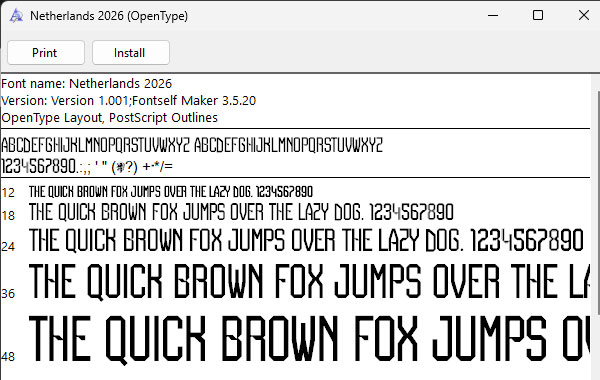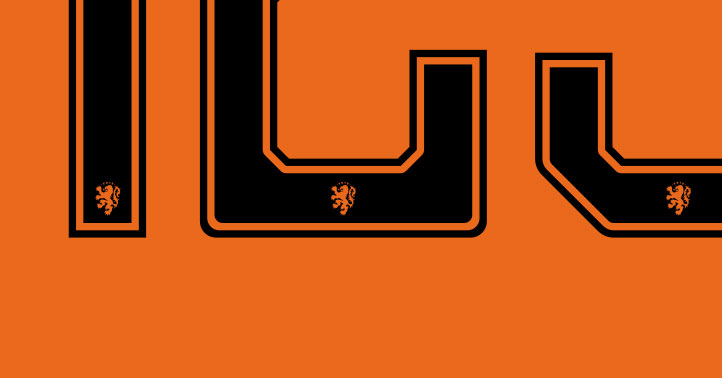
Netherlands 2026 Font (OTF & Vector)
This is the Netherlands 2026 font. This is special font for their kit and it will be used in World Cup 2026.
Netherlands 2026 Home Kit
We have font that you can use as Netherlands 2026 font which is general font with all plain letters and numbers (without Football Association logo in the bottom of numbers).
Netherlands 2026 Font
We also provide the font in vector file (eps) for more detail of dark outline and football association logo in the bottom of the numbers.
Netherlands 2026 Vector Font